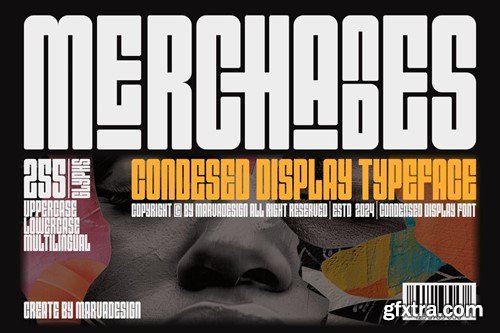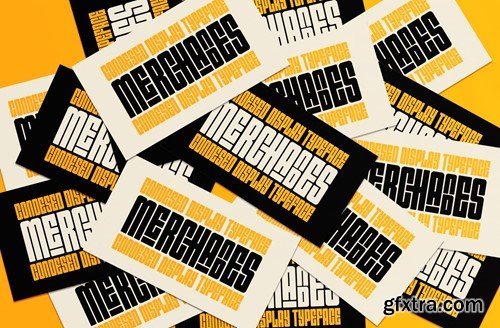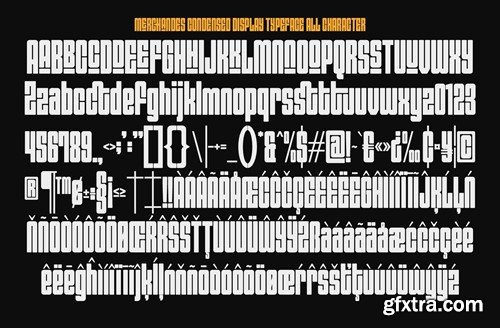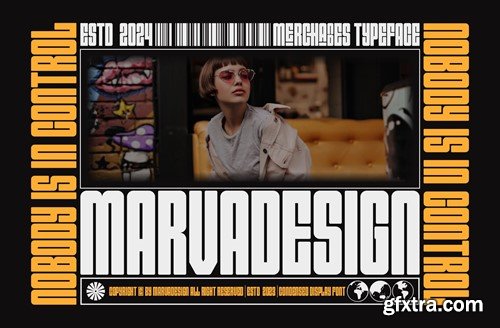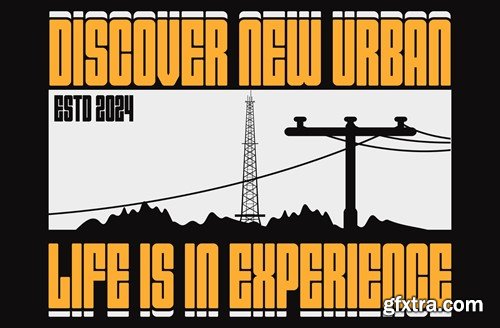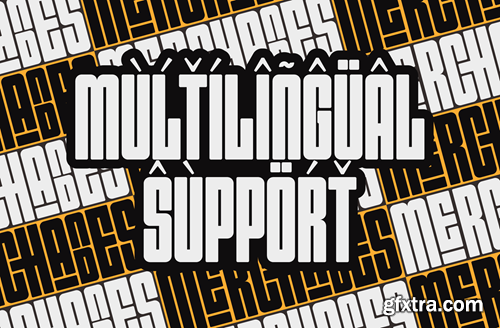
merchandes - 一种精炼的衬线字体 TTR29X6
Merchandes - A Condensed Display Font TTR29X6
Merchandes - A Condensed Display Font
Introducing our new product Merchandes Font - A Condensed Display Font authentic display font. The font is suitable for any branding project like logo, Template Design, Product and many more. outstanding in a wide range of contexts.
• Uppercase
• Lowercase
• Multilingual
• Ligature